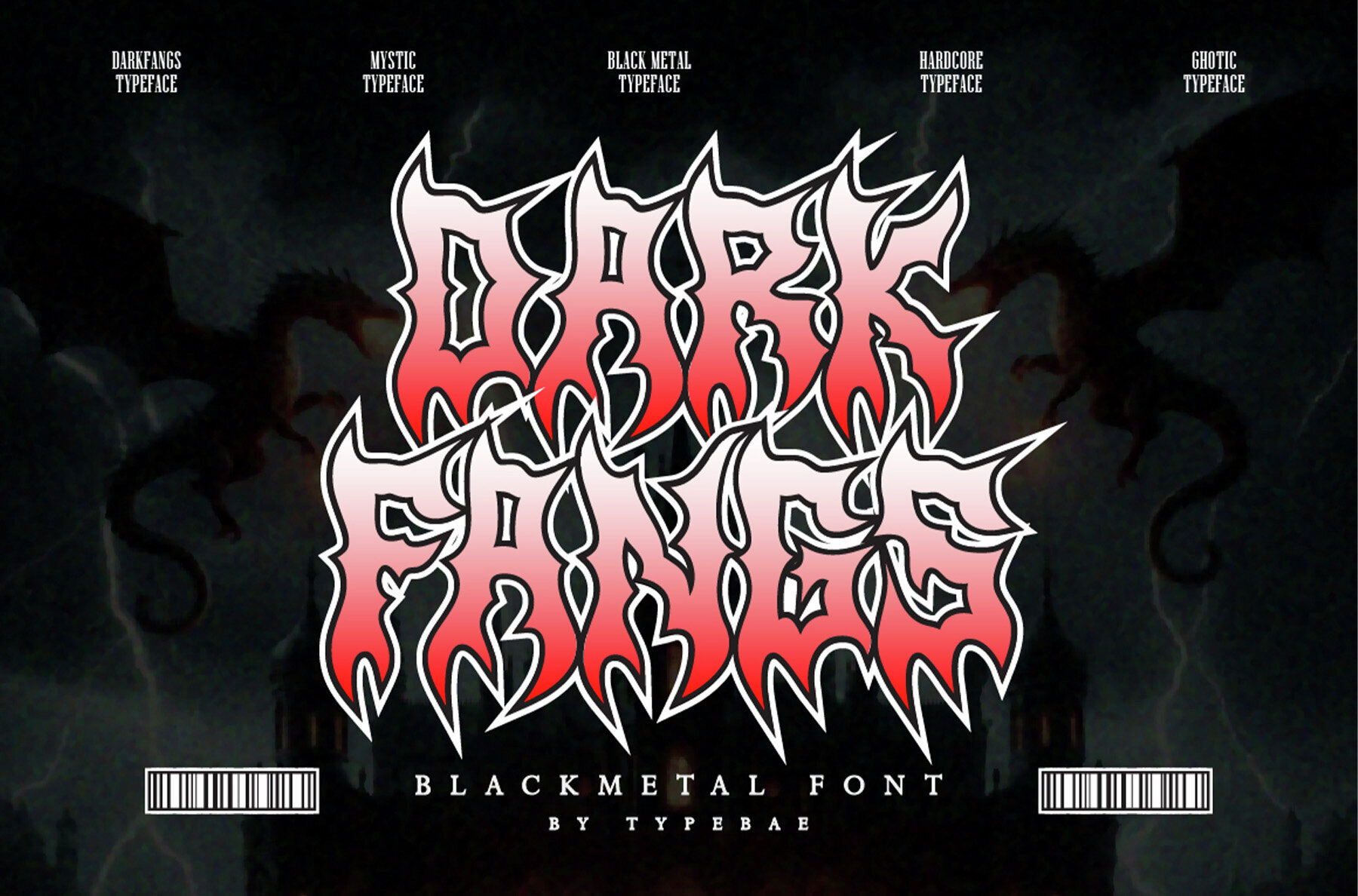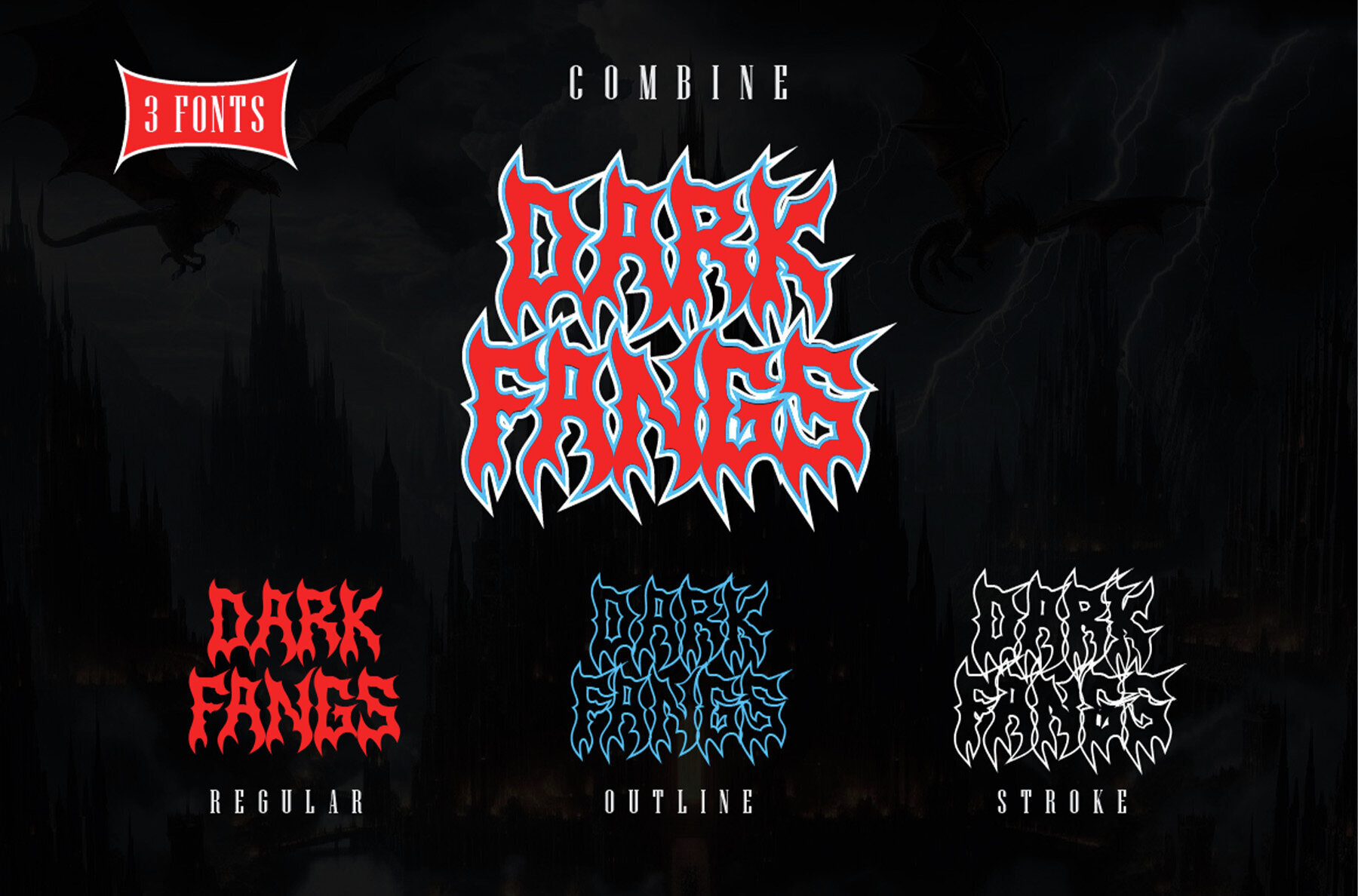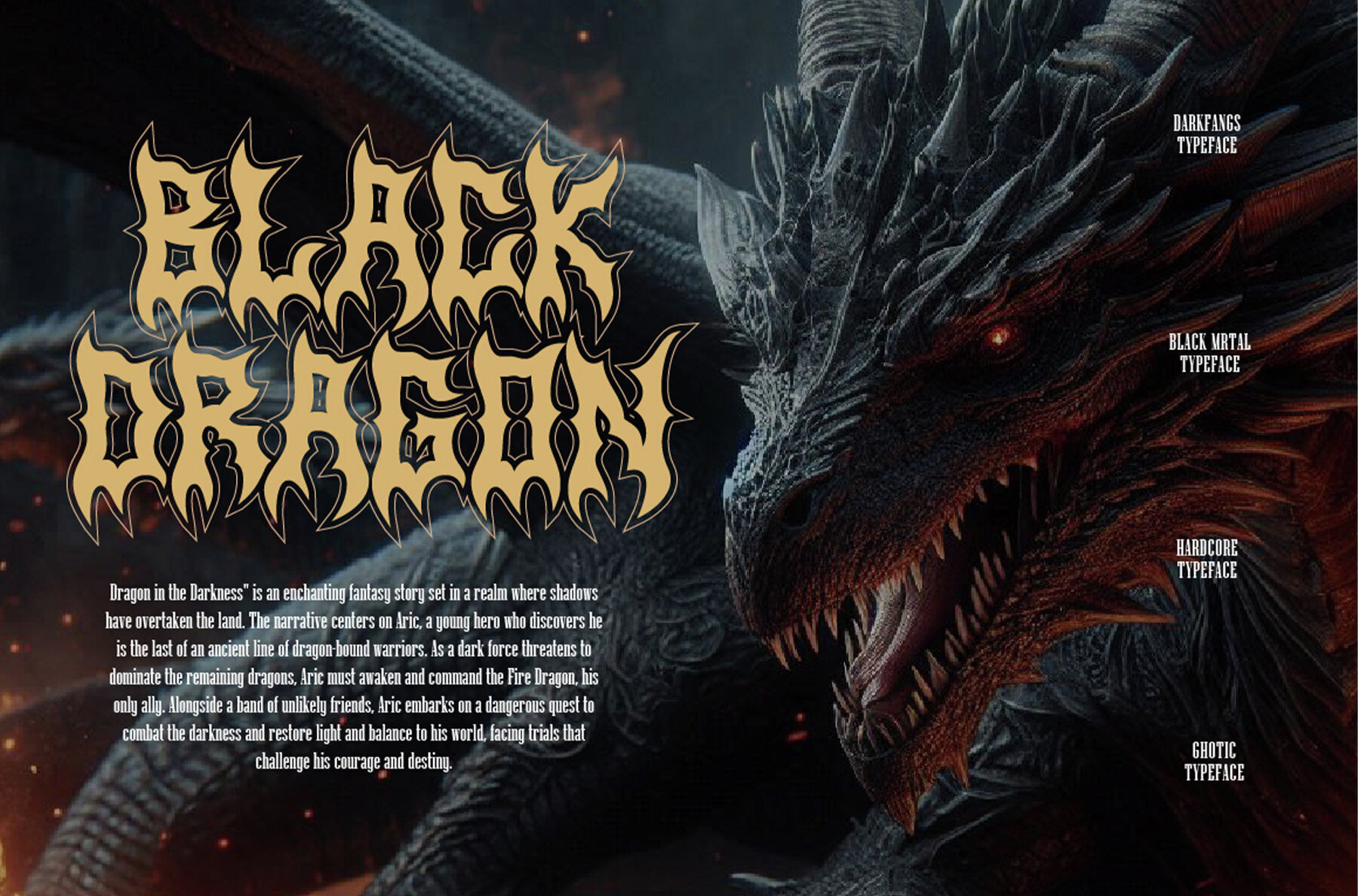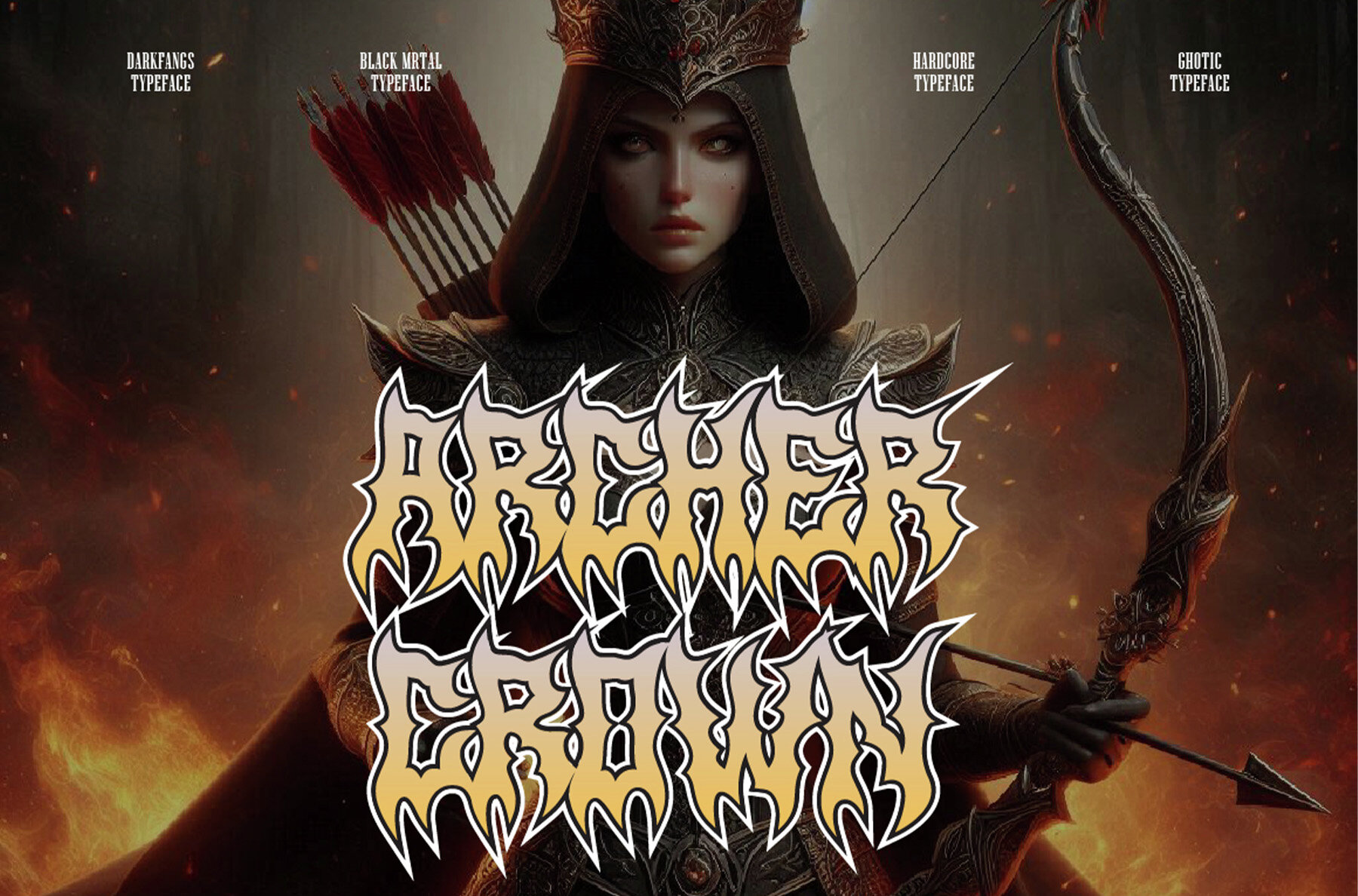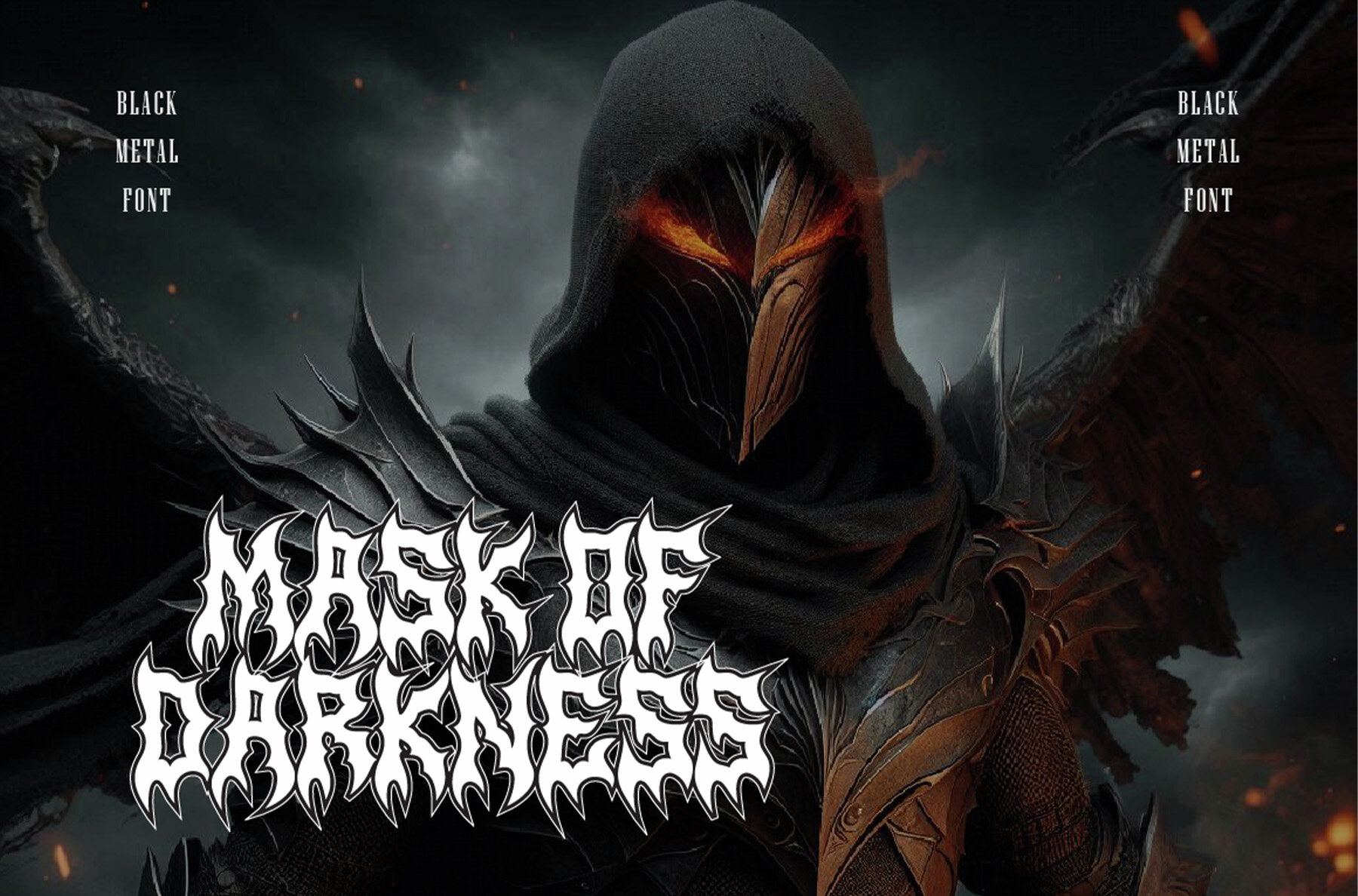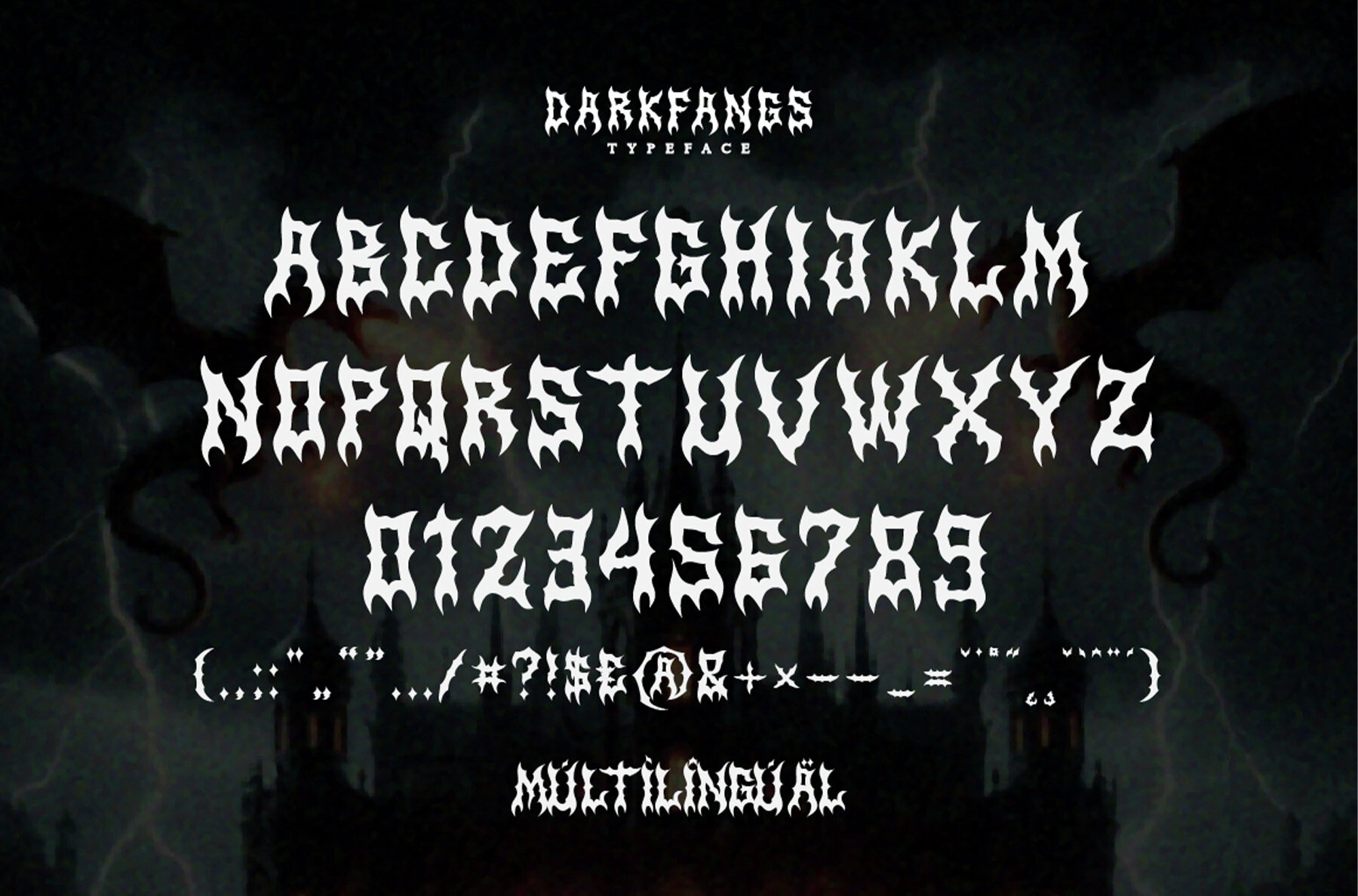
Darkfangs Font
Darkfangs is a gothic font that channels the raw intensity of black metal. Its sharp, modern forms make a strong visual statement, giving every project a distinct, edgy character. This typeface stands out in logos, band merchandise, and horror film posters, delivering a bold look that commands attention. Darkfangs is designed for those who want a typeface that leaves a lasting impression—perfect for projects where boldness and attitude matter.Darkfangs Gothic Typeface